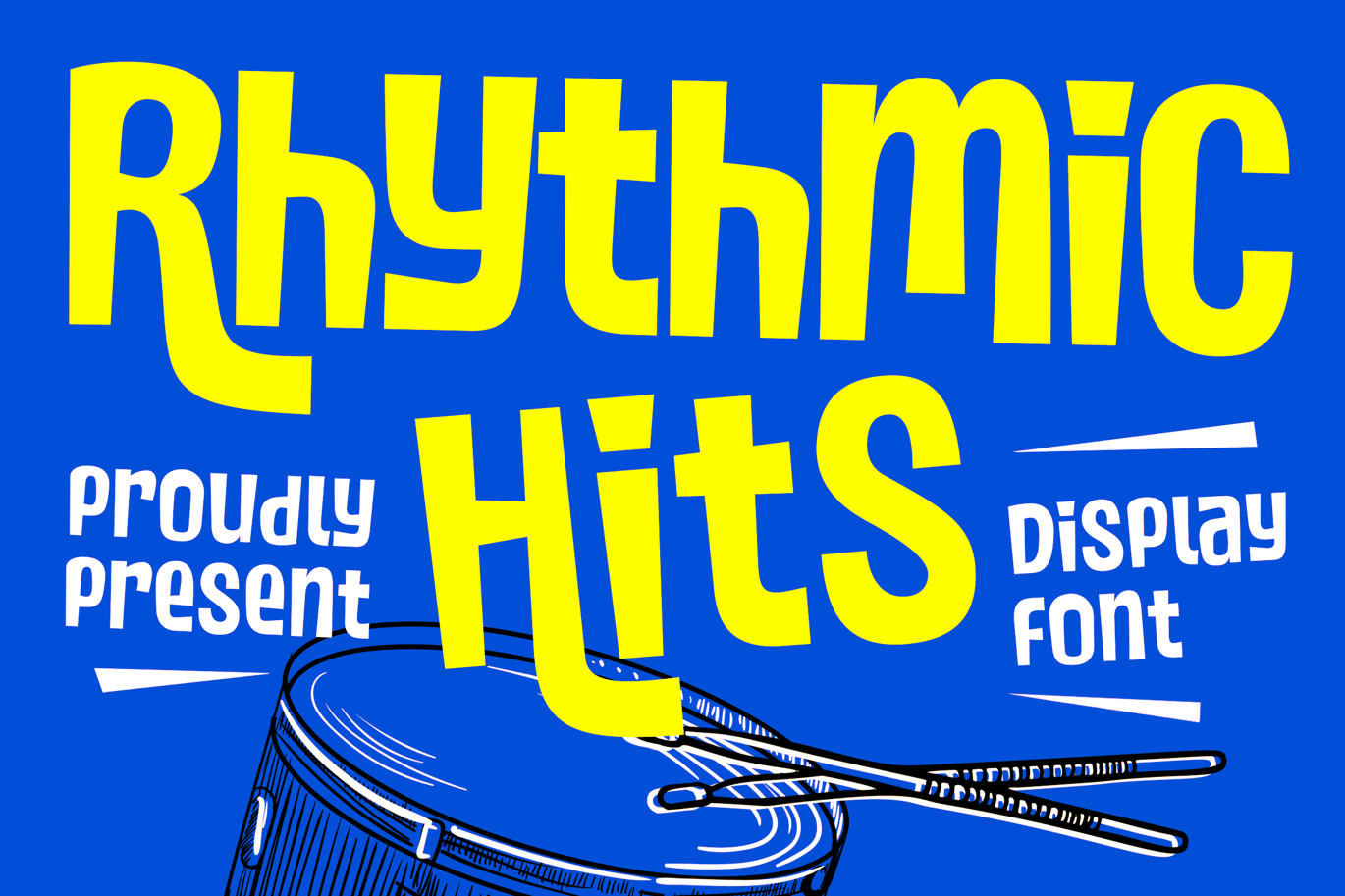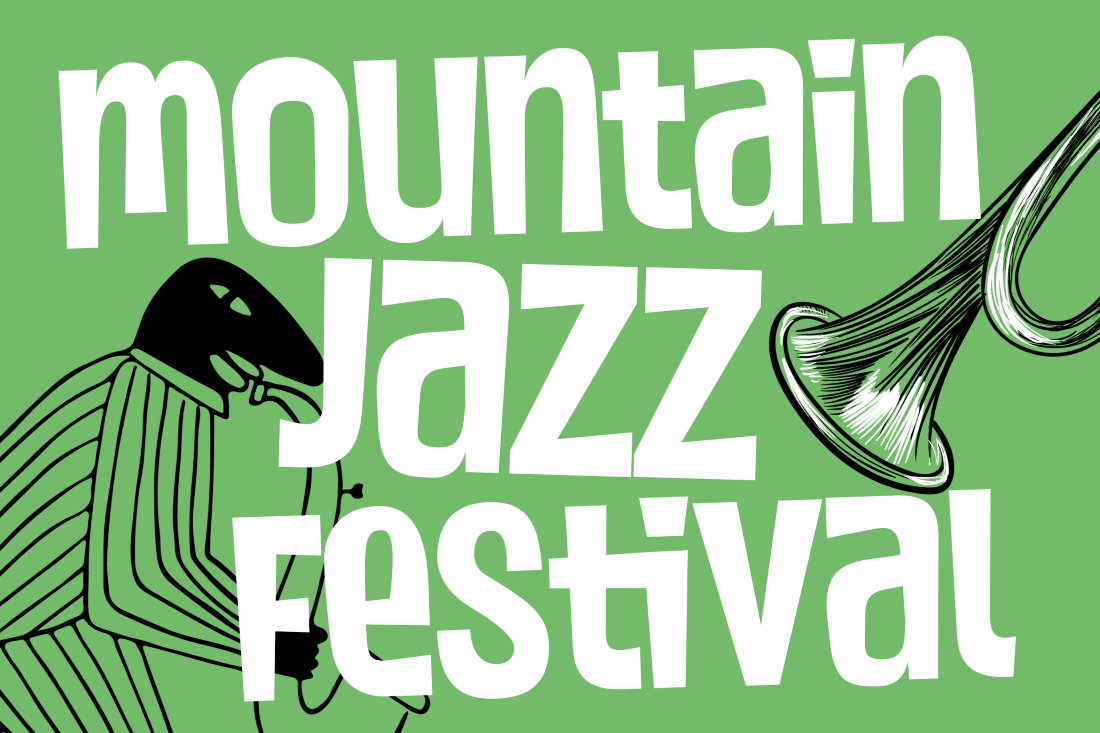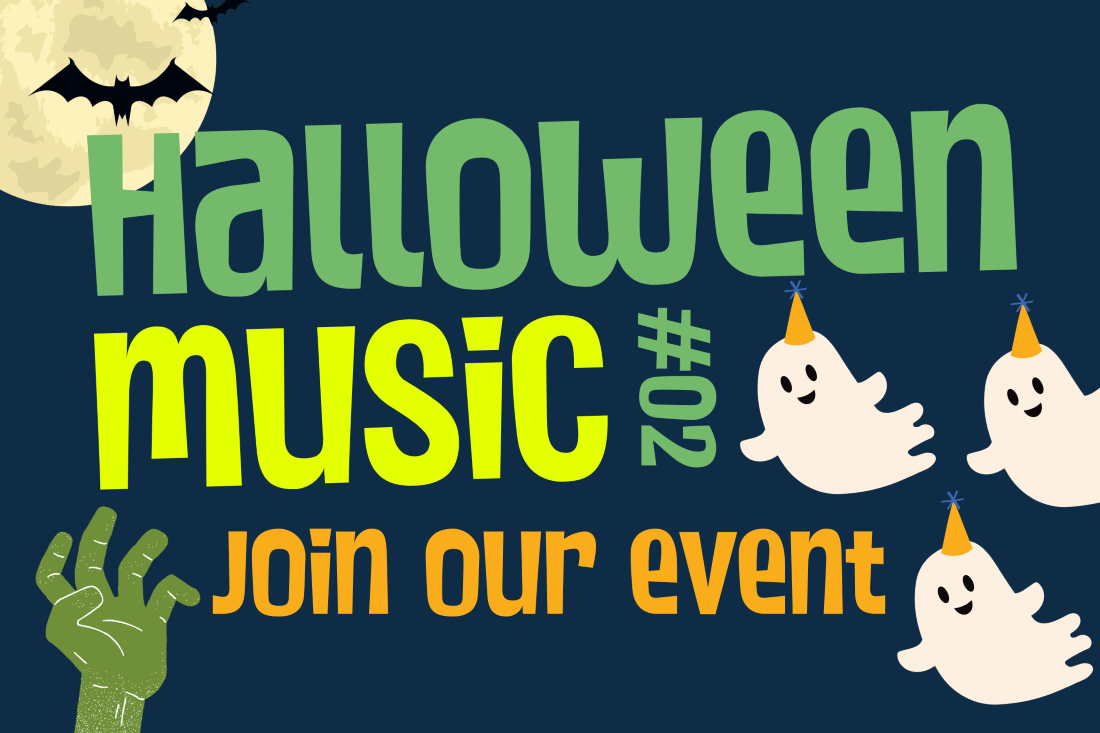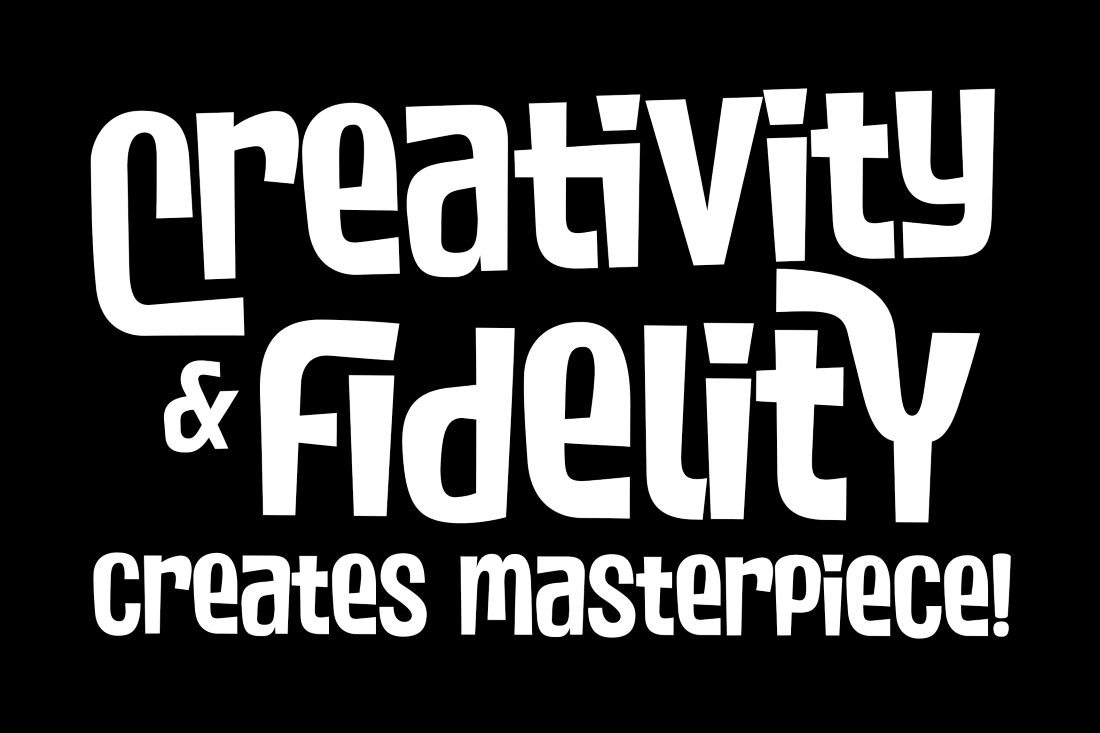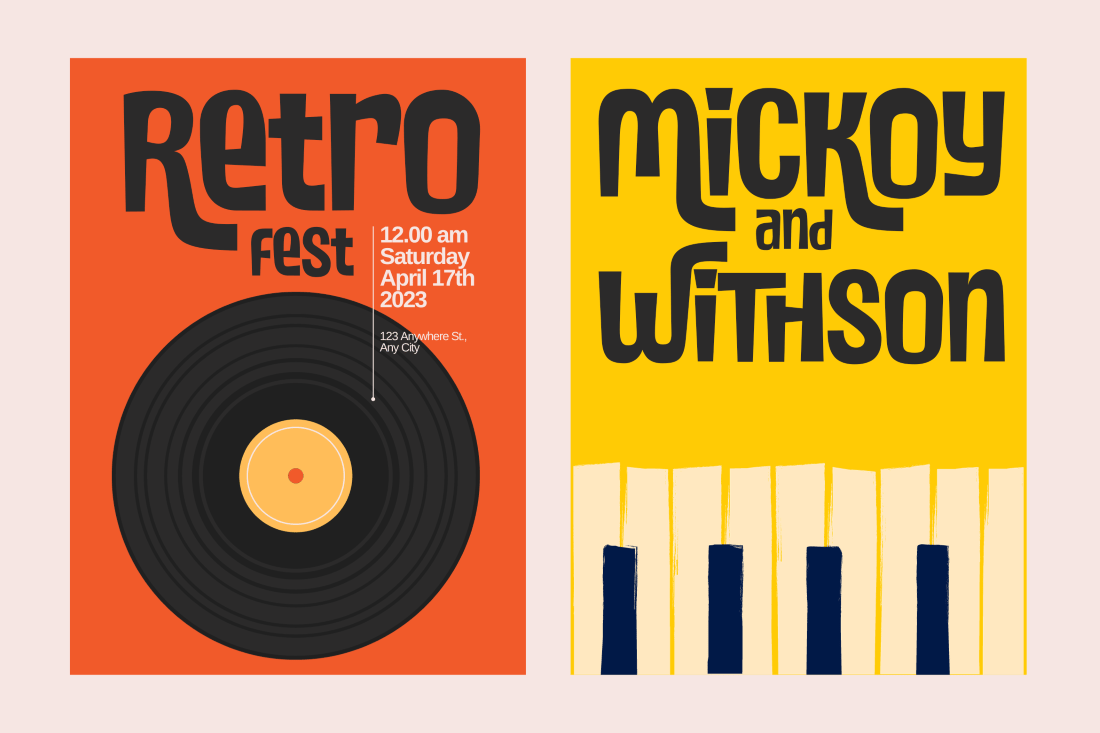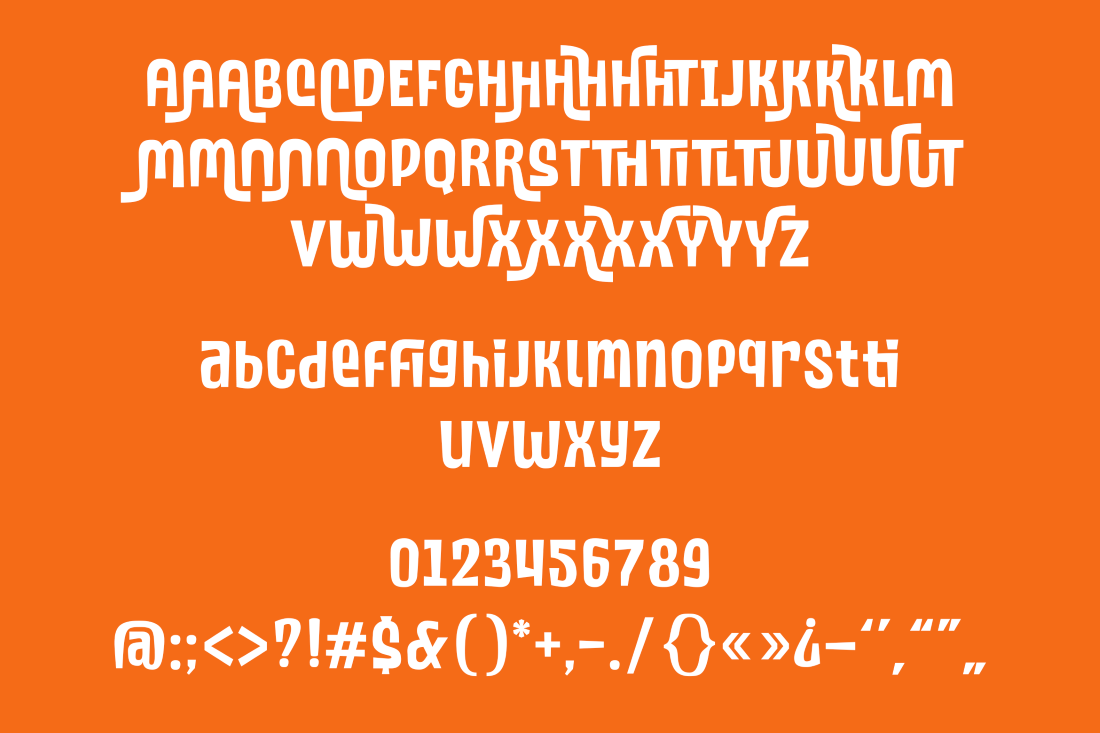
Rythmic Hits – Handdrawn Display Font
Introducing “Rythmic Hits,” a captivating blend of retro and modern design, crafted meticulously for your creative needs. This handdrawn display font strikes a perfect balance between the bold and beautiful, making your projects stand out with a solid, charismatic presence.
“Rythmic Hits” takes you on a journey back in time while embracing contemporary aesthetics, making it ideal for a wide range of applications. Its carefully designed ligatures enhance the visual harmony of your text, ensuring that your content looks flawless and effortlessly stylish.
Whether you’re working on a retro-inspired poster, a modern branding project, or a captivating display piece, this font’s versatility shines through. It adds a touch of nostalgia with a contemporary twist, making every word a work of art.
Elevate your design game and let “Rythmic Hits” do the talking. Create stunning displays that are not only visually striking but also resonate with the rhythm of your audience. This font is the perfect choice to bring your creative vision to life, ensuring your message is heard loud and clear.